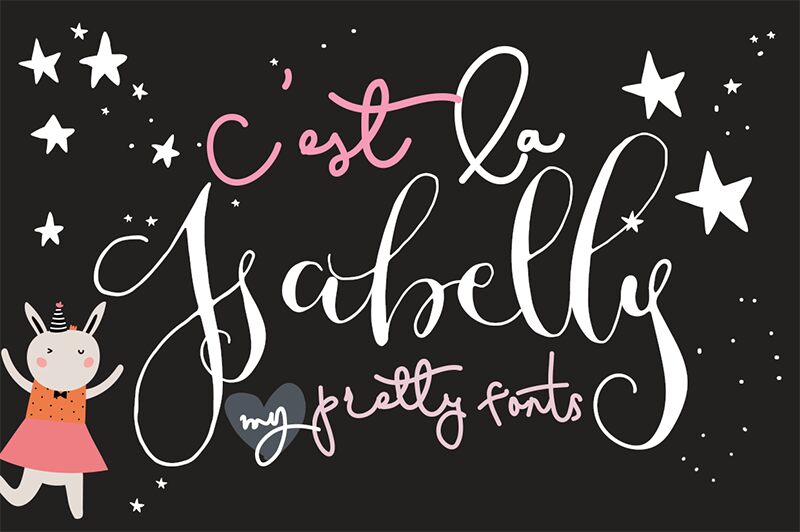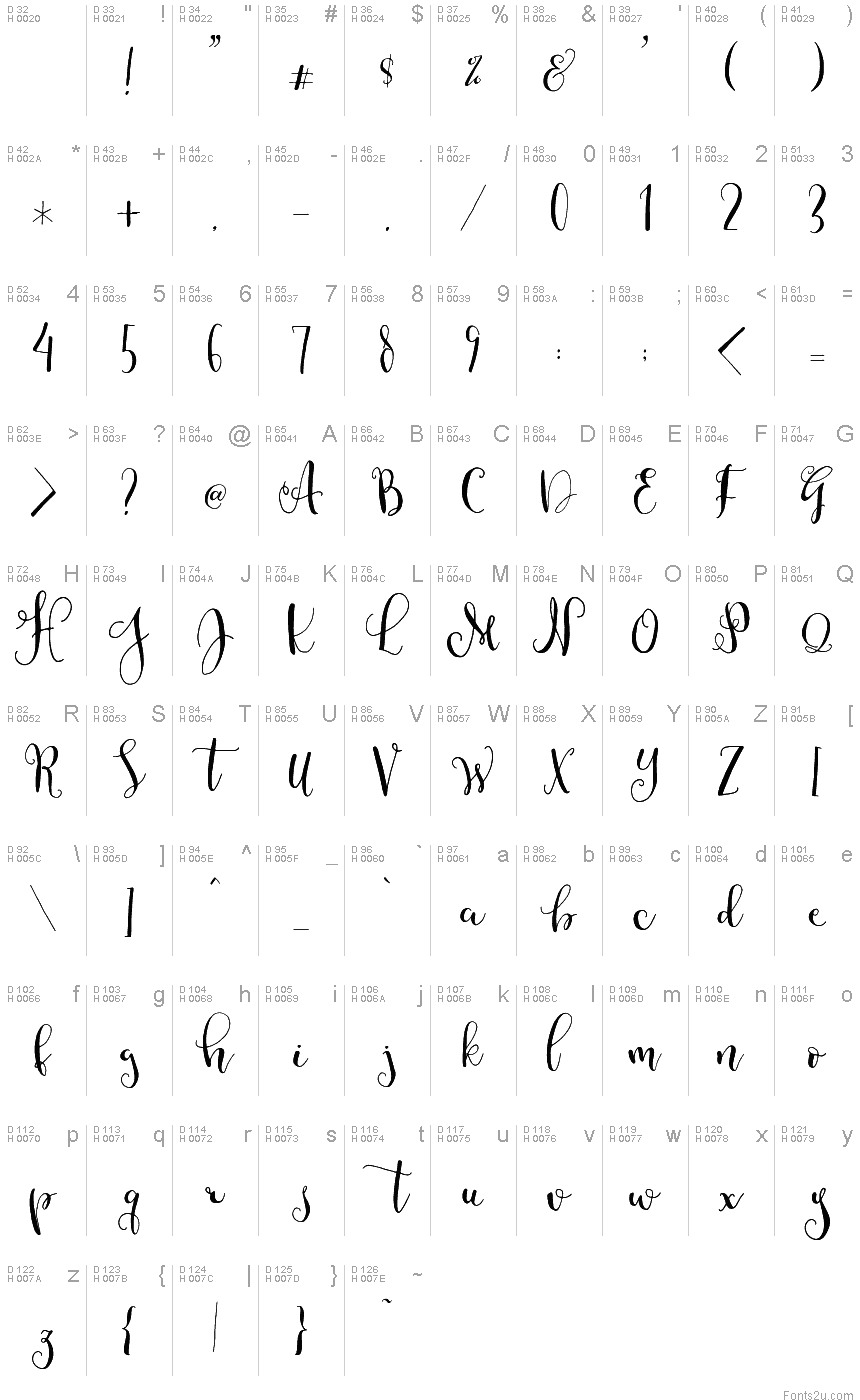
C'est La Isabelly Alt fonts is PDF embedded and Office software friendly, best for your signature, invitation, card design or journaling, any modern until classy design needs. This version is Personal Use only.